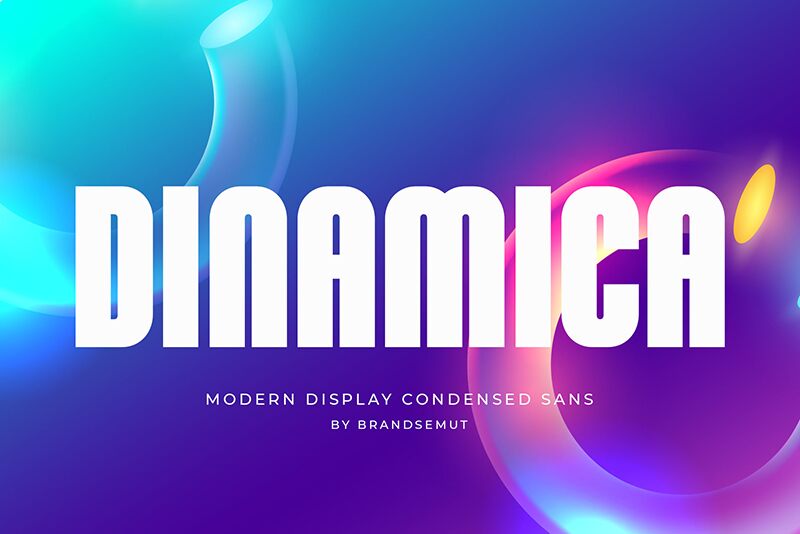
Dinamica, a captivating sans serif font designed by BrandSemut, exudes a bold, condensed presence that commands attention. This typographic masterpiece seamlessly blends geometric precision with a subtle, alluring edge. The font's sharp, angular forms create a striking visual impact, conveying a sense of strength and modern sophistication. Dinamica's confident personality shines through, making it an exceptional choice for branding, editorial designs, and various digital applications where a bold, impactful aesthetic is desired.
Dinamica's versatility extends beyond its visual appeal. Its condensed width and bold weight lend themselves well to eye-catching headlines, impactful typography, and dynamic logo designs. Whether crafting a powerful brand identity, designing captivating marketing materials, or curating a visually striking digital experience, Dinamica's unique character is poised to elevate any project that seeks to make a lasting impression.